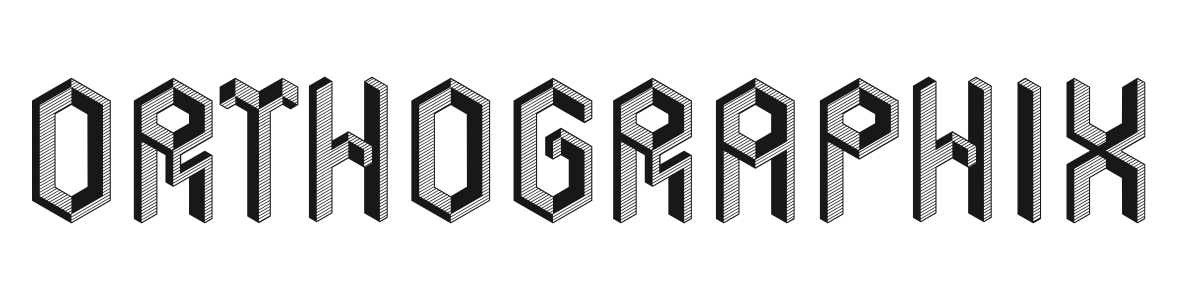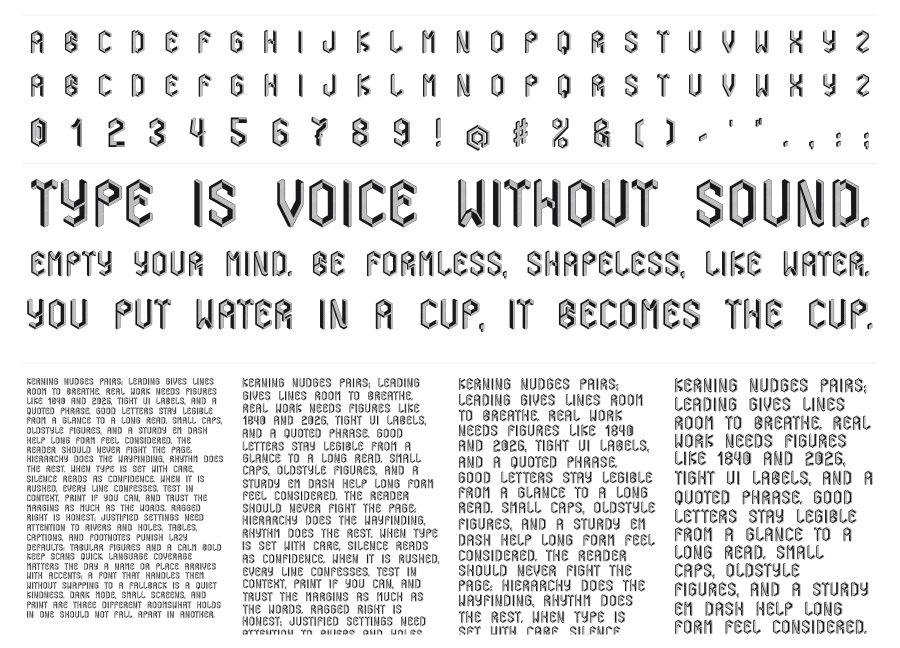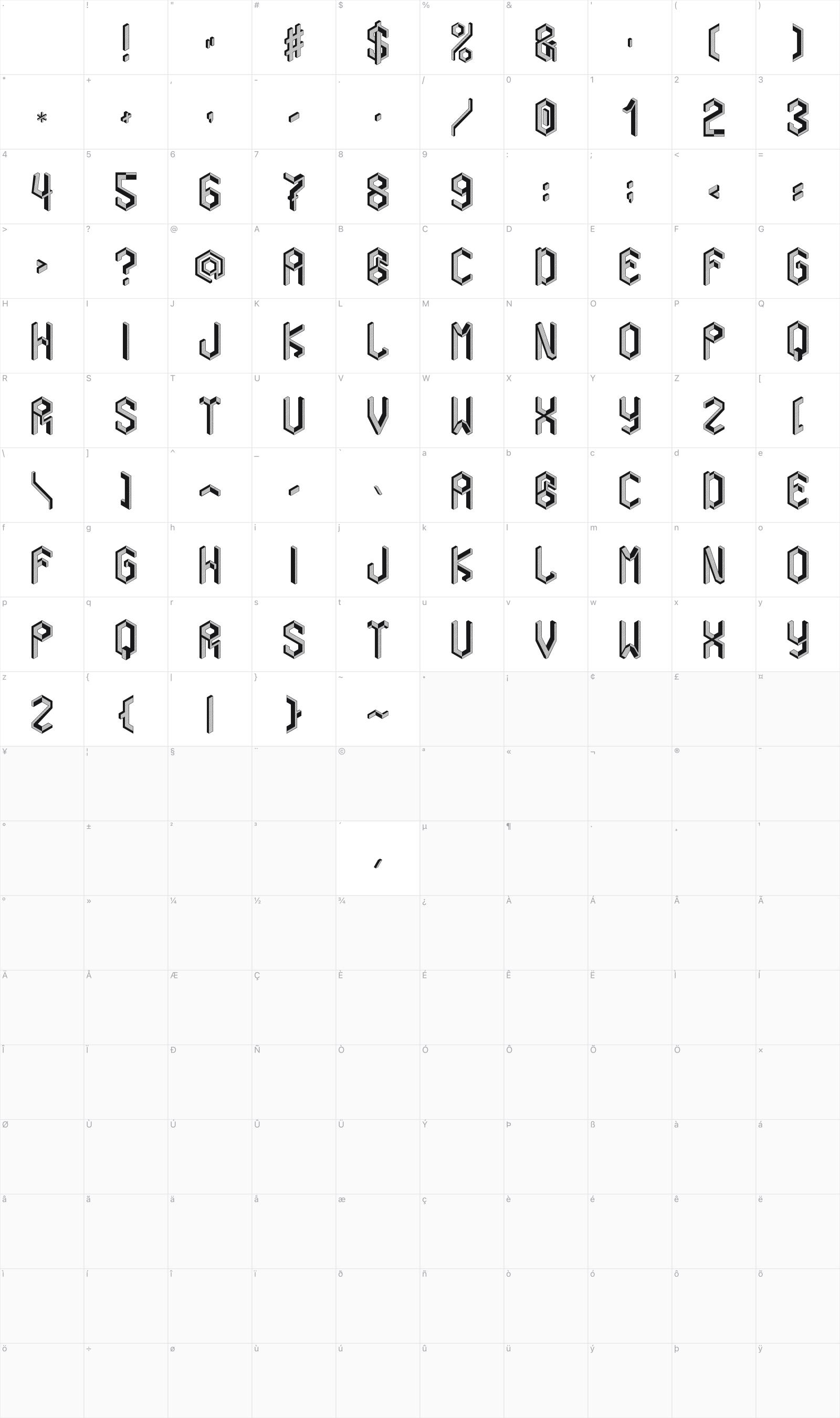
Orthographix
Orthographix is an etched isometric display font that renders each character as a three-dimensional block viewed from a corner angle. The hatched parallel lines across the top and side planes create a strong optical depth effect, somewhere between technical illustration and op-art. Designed for large-scale use where the illusion can breathe.